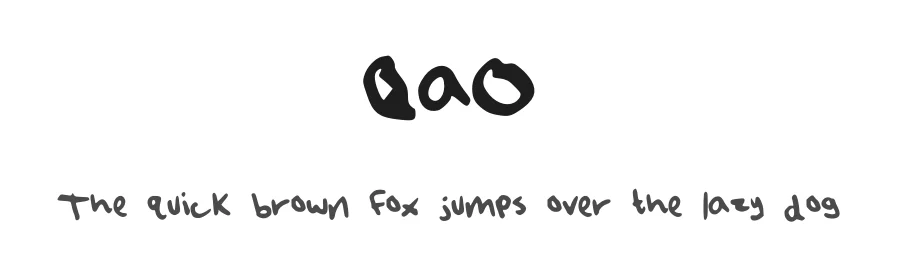
About Easygoingness Font
Easygoingness is a script & handwritten font designed by Brittney Murphy Design. It includes 378 glyphs, a regular weight, OTF (CFF) format, and 287 languages. Easygoingness is free to download; check the license details on this page before commercial use. Script & handwritten fonts like Easygoingness work best for wedding invitations, greeting cards, signatures, and elegant branding.
Easygoingness Font is a script font that shines as a display or heading face. Pair it with a clean sans-serif or serif font for body text β the contrast creates a clear hierarchy while the two styles stay balanced and easy to read.